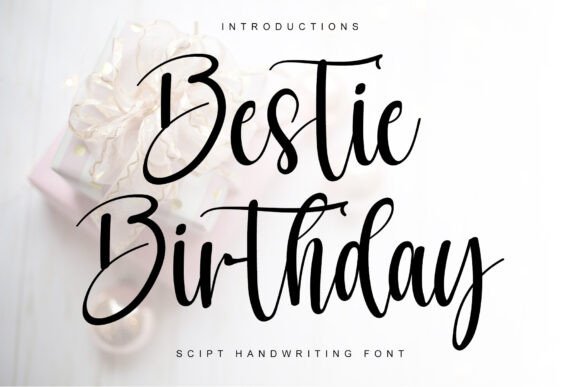
The Magic of Bestie Birthday Font: Elevate Your Designs with Elegance
I’ll never forget the time I was working on a birthday card design for a client, and I just couldn’t find the perfect font. I wanted something that would make the card feel special, elegant, and celebratory. That’s when I stumbled upon Bestie Birthday, a magical script font that has since become a staple in my design toolkit. In this article, I’ll share my experience with Bestie Birthday, its features, and how to make the most of it in your designs.
An Honest Review of Bestie Birthday
Bestie Birthday is a beautifully crafted script font that exudes elegance and sophistication. Here are some things I love about it:
- ✨ Elegant and flowing script style that’s perfect for birthday cards, invitations, and other celebratory designs
- ✅ Wide range of OpenType features, including glyphs and stylistic alternates, to give you creative control
- 💫 Highly legible, even at smaller font sizes, making it versatile for various design projects
- 🎉 Regularly updated with new features and improvements
While Bestie Birthday is an excellent font, it’s not without its quirks:
- 🤔 Some users might find the font a bit too ornate for very casual or minimalist designs
- ⚠️ Limited availability of certain OpenType features in older software or platforms
The Story Behind Bestie Birthday
Bestie Birthday was created with the intention of providing a beautiful, elegant script font for designers and crafters. The font’s creator wanted to craft a font that would add a touch of magic to any design project, whether it’s a birthday card, invitation, or social media post. With its wide range of OpenType features and highly legible design, Bestie Birthday has become a popular choice among designers and hobbyists alike.
| Is Bestie Birthday suitable for body text? | While Bestie Birthday is highly legible, it’s primarily designed for display text and headings. For body text, you may want to choose a more traditional serif or sans-serif font. |